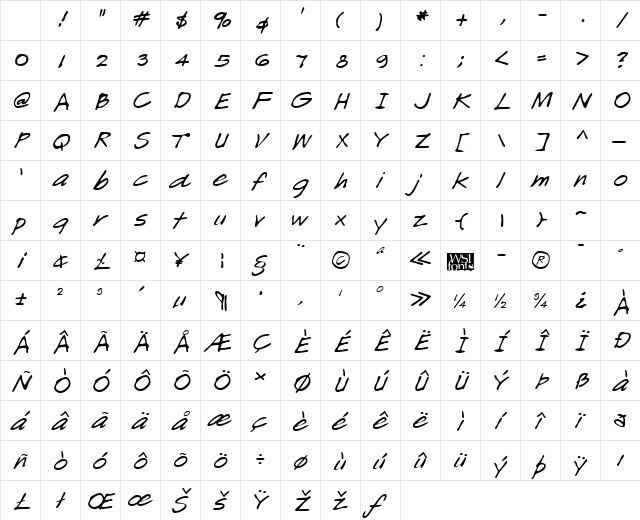
KingsHand Regular Free Font
KingsHand Regular
KingsHand Family
Design Context for KingsHand
KingsHand flows with the natural rhythm of handwritten lettering, making it ideal for designs that call for warmth and personal expression.